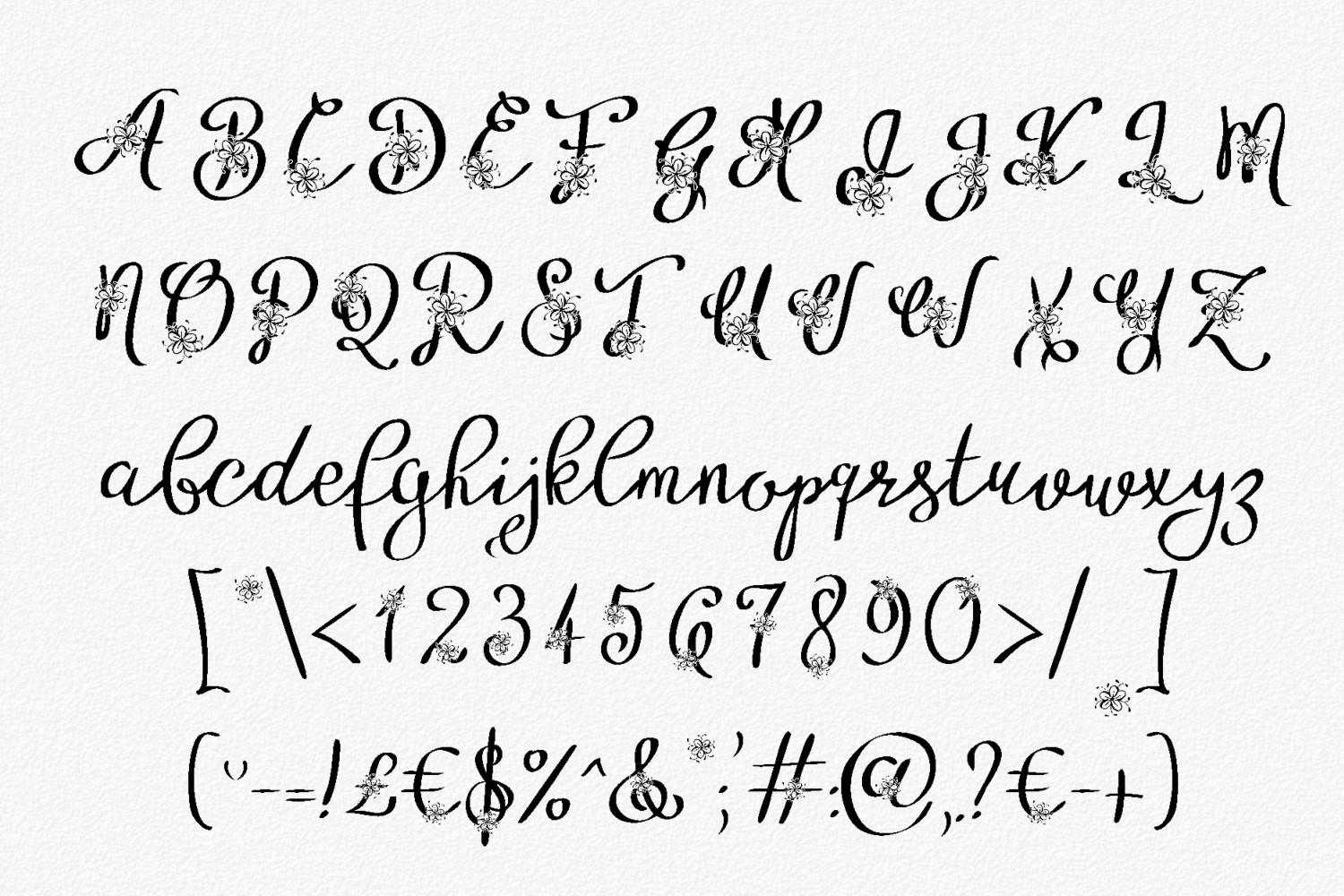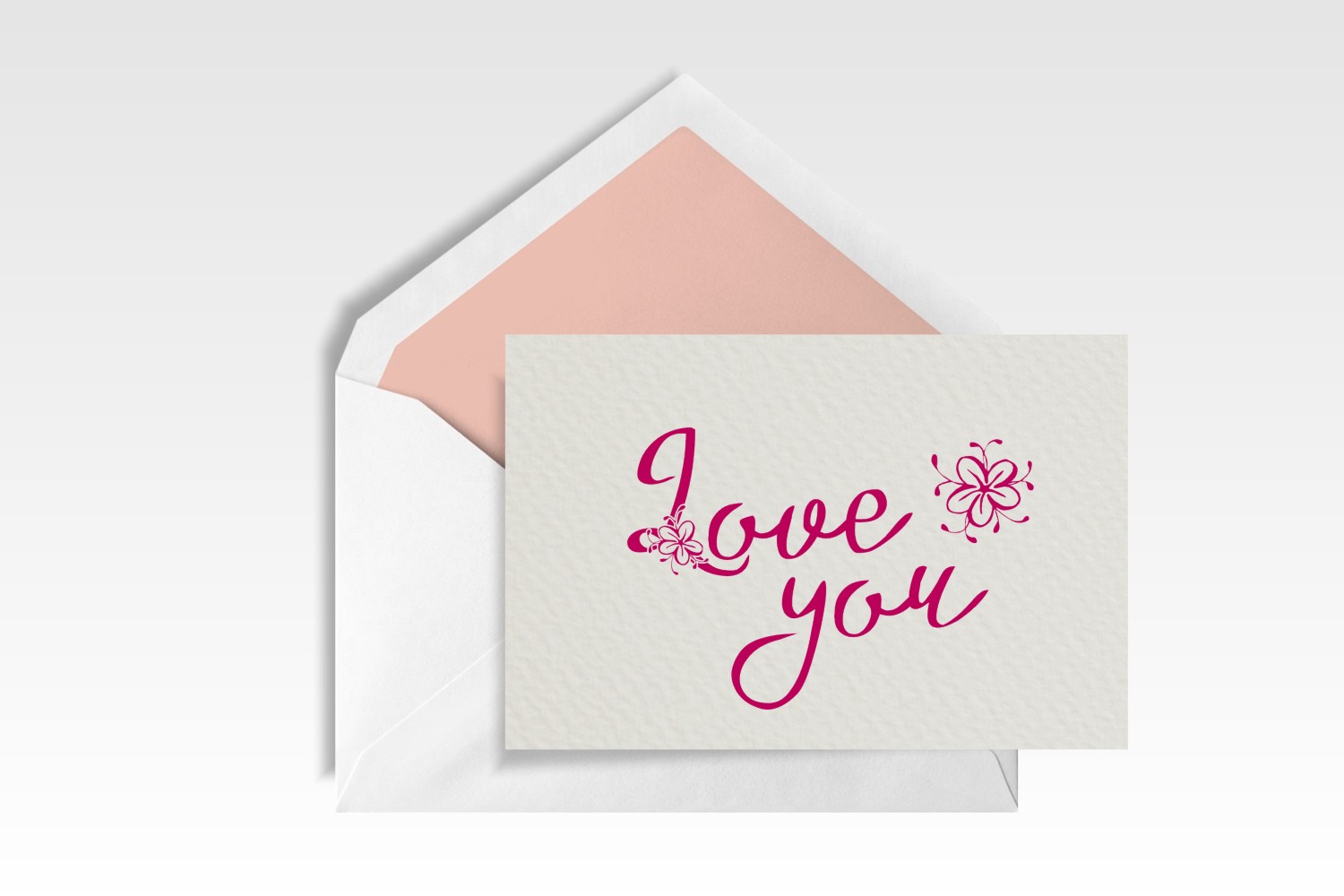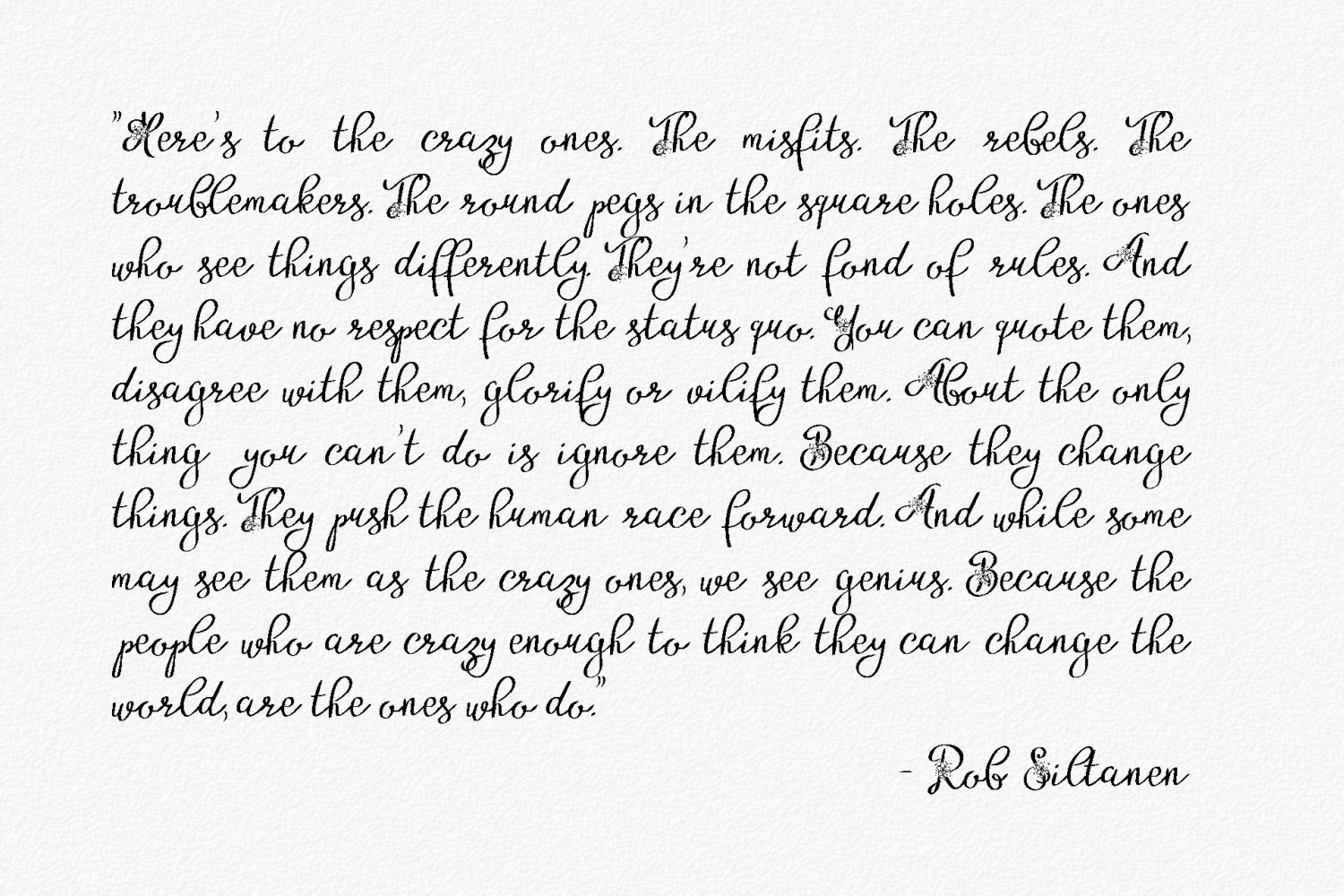
HomeScript FontsAlyfe Font Script Fonts Alyfe Font FacebookTwitterPinterestWhatsApp Alyfe Font Poster 2 Alyfe Font Poster 3 Alyfe Font Poster 4 About Alyfe Font Alyfe is a stunning, decorative typeface featuring floral decorations on each letter. DOWNLOAD NOW People also explored Broken Brush Font Costerhon Font Summer Doodle Font Matania Script Font Kesuma Monogram Font Briliant Font Love the Way You Are Font Allison Script Star Valentine Font 142 0 TagsAlyfe Font Previous articleOriginal Sin FontNext articleGoodbye Font LEAVE A REPLY Cancel reply Comment: Please enter your comment! Name:* Please enter your name here Email:* You have entered an incorrect email address! Please enter your email address here Website: Save my name, email, and website in this browser for the next time I comment. Personal Use Free Earwig Factory Personal Use Free Read more about this font Good Times Personal Use Free Read more about this font Happy Camping Personal Use Free Read more about this font Crayones Personal Use Free Read more about this font BLOG Exploring Font Trends Shaping Communication in the Digital Era Fonts, like all design elements, are subject to trends. They play a crucial role in communicating a brand's personality,... The 10 Best Handwriting Fonts to Add Personality to Your Designs Where to Buy American Fonts Online in 2024 Free vs Paid Fonts: Why Investing in Premium Fonts Is Worth It